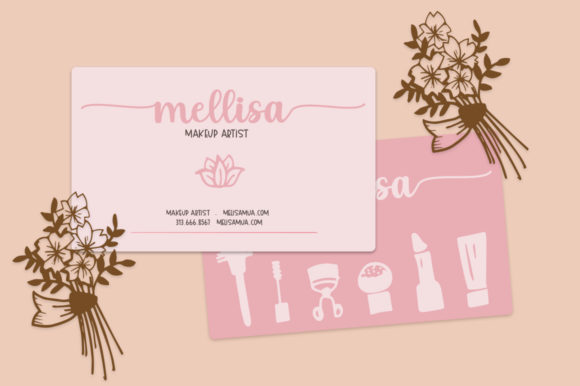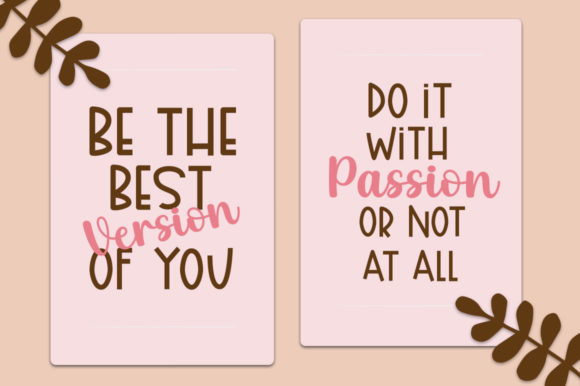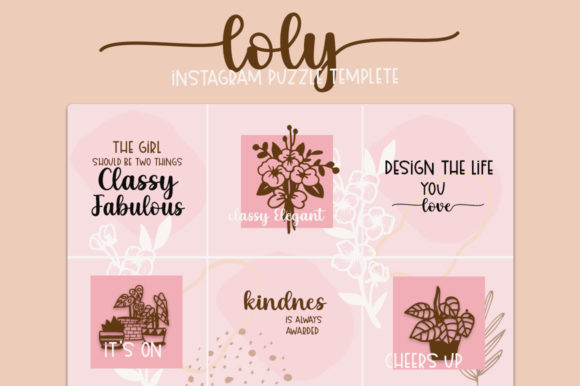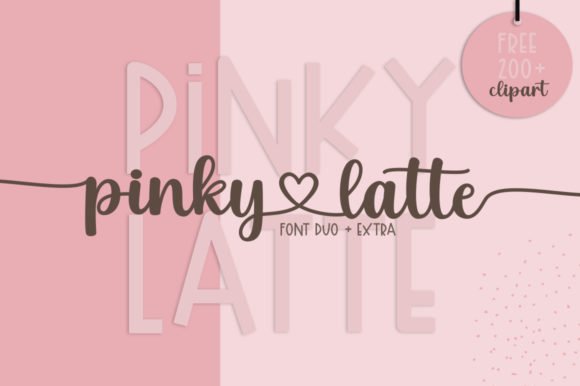
Introduction to Pinky Latte Font
Pinky Latte is an elegant and dainty duo font (handwritten and sans serif), that features sweet and delicate swashes.
This original look will appeal to a wide range of crafty ideas, from letterheads and titles, to stationery .
Key Features of Pinky Latte Font